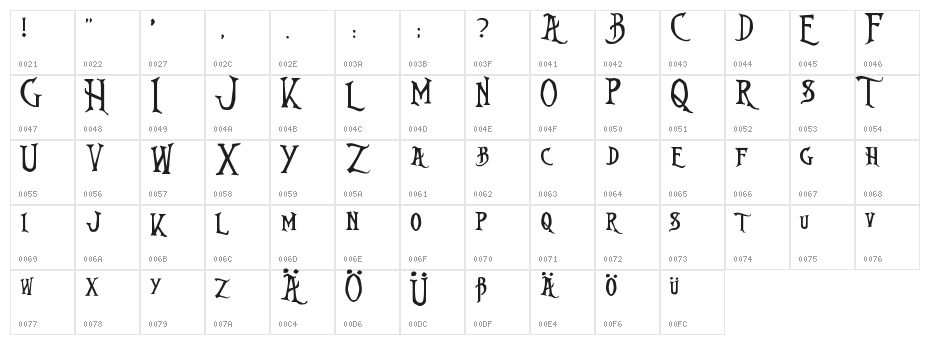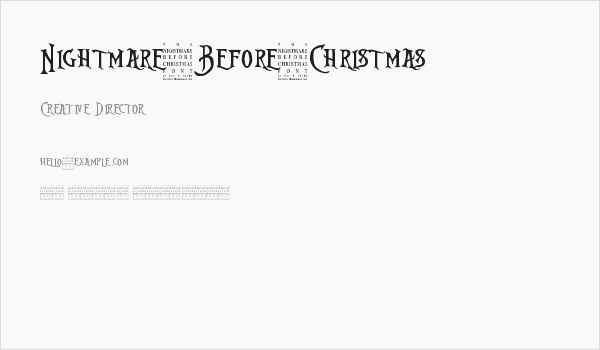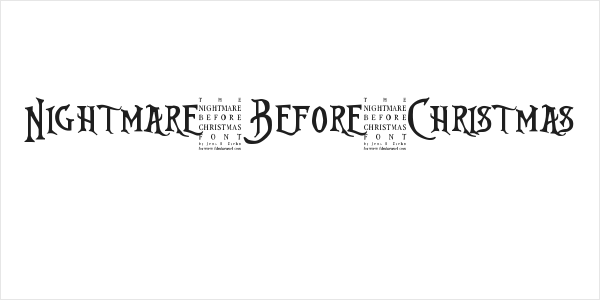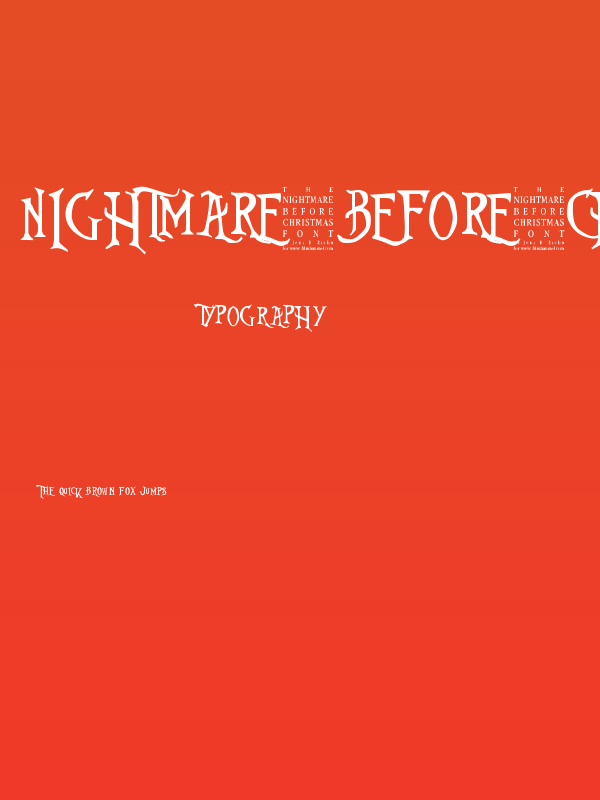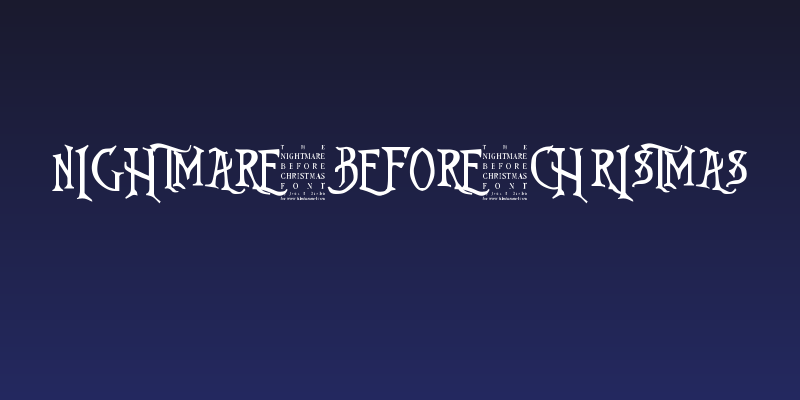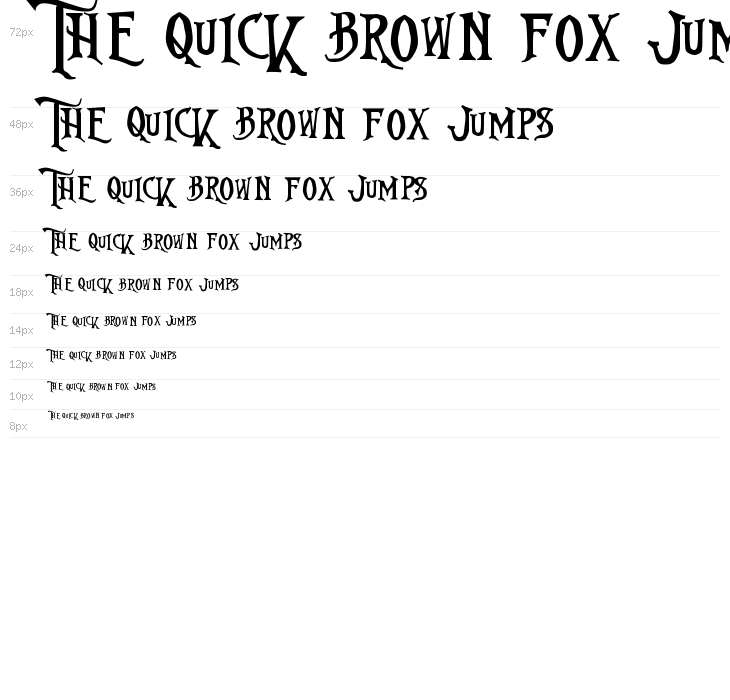
Nightmare-Before-Christmas Font
Nightmare-Before-Christmas Description
This font features a whimsical and slightly eerie design, reminiscent of a gothic or fantasy style. The characters have a hand-drawn appearance with irregular strokes and varying line thicknesses, giving them a unique and playful yet dark aesthetic. The uppercase letters are particularly stylized, with exaggerated serifs and curves that add to the font's distinctive character. The lowercase letters maintain a similar style, ensuring consistency throughout the typeface. This font is perfect for projects that require a touch of fantasy or a spooky theme, making it ideal for Halloween or fantasy-themed designs.
| Overall Style | Gothic, Fantasy, Whimsical |
| Use Case | Headlines, Posters, Decorative Text |
| Proposed Projects | Ideal for Halloween invitations, fantasy book covers, themed posters, and decorative signage. |